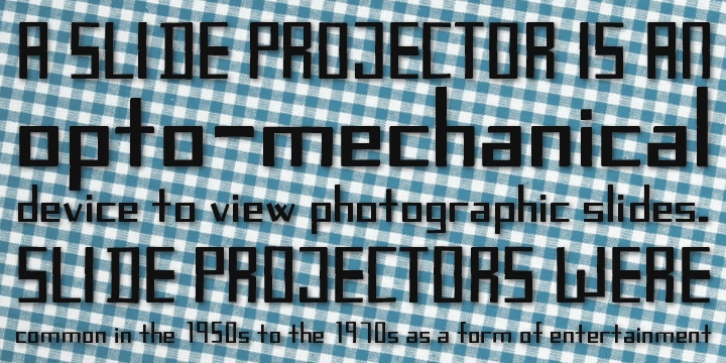
Publisher: Volcano
DiaBolo is the result of a few broken slide frames glued together.
It is no problem to build any letter with a simple slide frame. DiaBolo is a digitally and organic font.